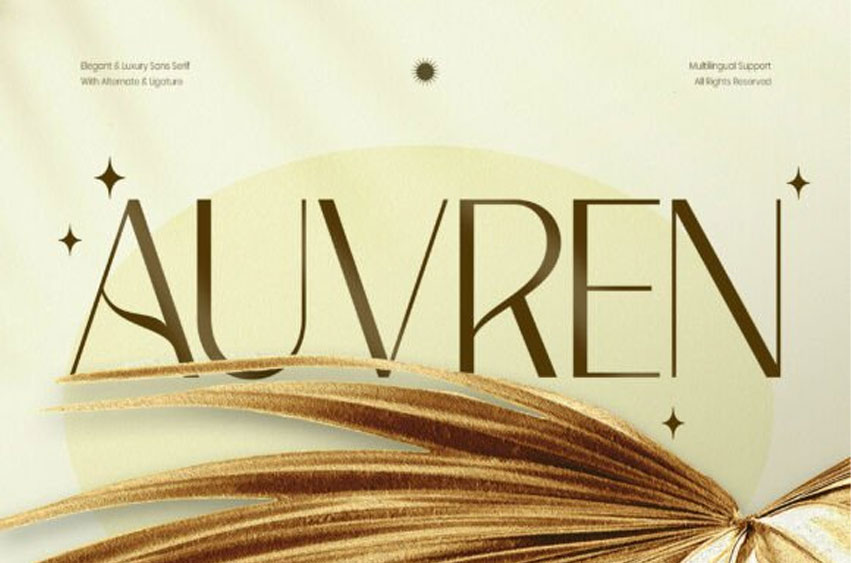
Auvren Font
Auvren Font is an elegant luxury sans serif font designed to express sophistication through simplicity.
Featuring sleek high-contrast letterforms, refined proportions, and graceful minimalist details, Auvren delivers a timeless aesthetic that feels both modern and effortlessly luxurious. Every character is carefully crafted to create clean compositions with a premium editorial presence.